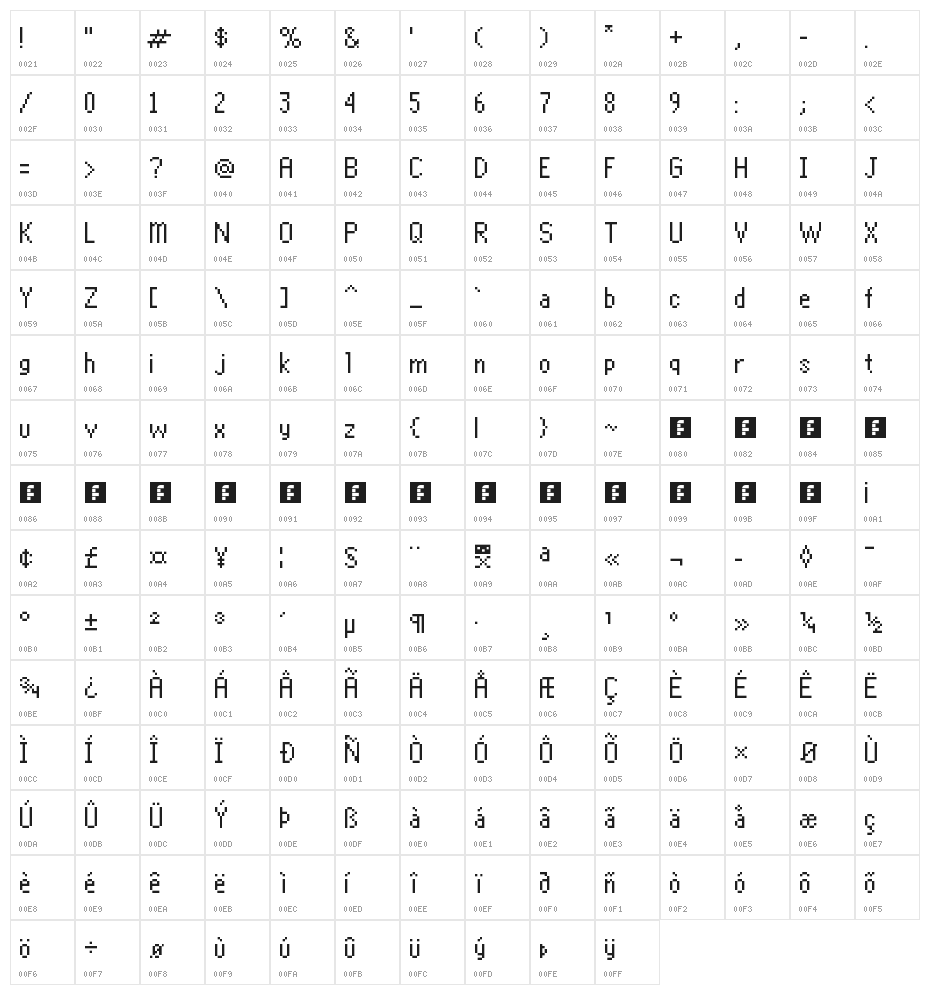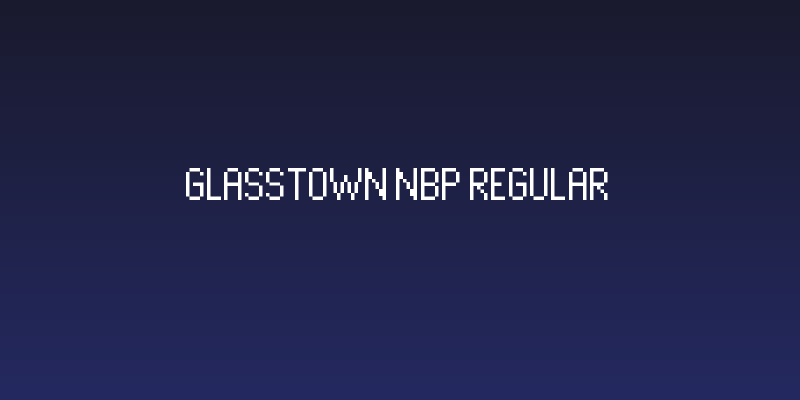
Glasstown NBP Regular Font
Glasstown NBP Regular Description
This font features a pixelated, grid-like design reminiscent of early digital displays and video games. Each character is composed of small, square blocks, giving it a distinctly retro and digital aesthetic. The uppercase and lowercase letters maintain a consistent height and width, contributing to a uniform appearance. Numbers and special characters follow the same pixelated style, ensuring cohesion across all elements. The font's design is straightforward and geometric, making it ideal for projects that aim to evoke nostalgia or a digital theme.
| Overall Style | Retro, Digital |
| Use Case | Logos, Headlines, Digital Art |
| Proposed Projects | Ideal for video game design, digital art projects, retro-themed posters, and any creative work that requires a nostalgic digital look. |